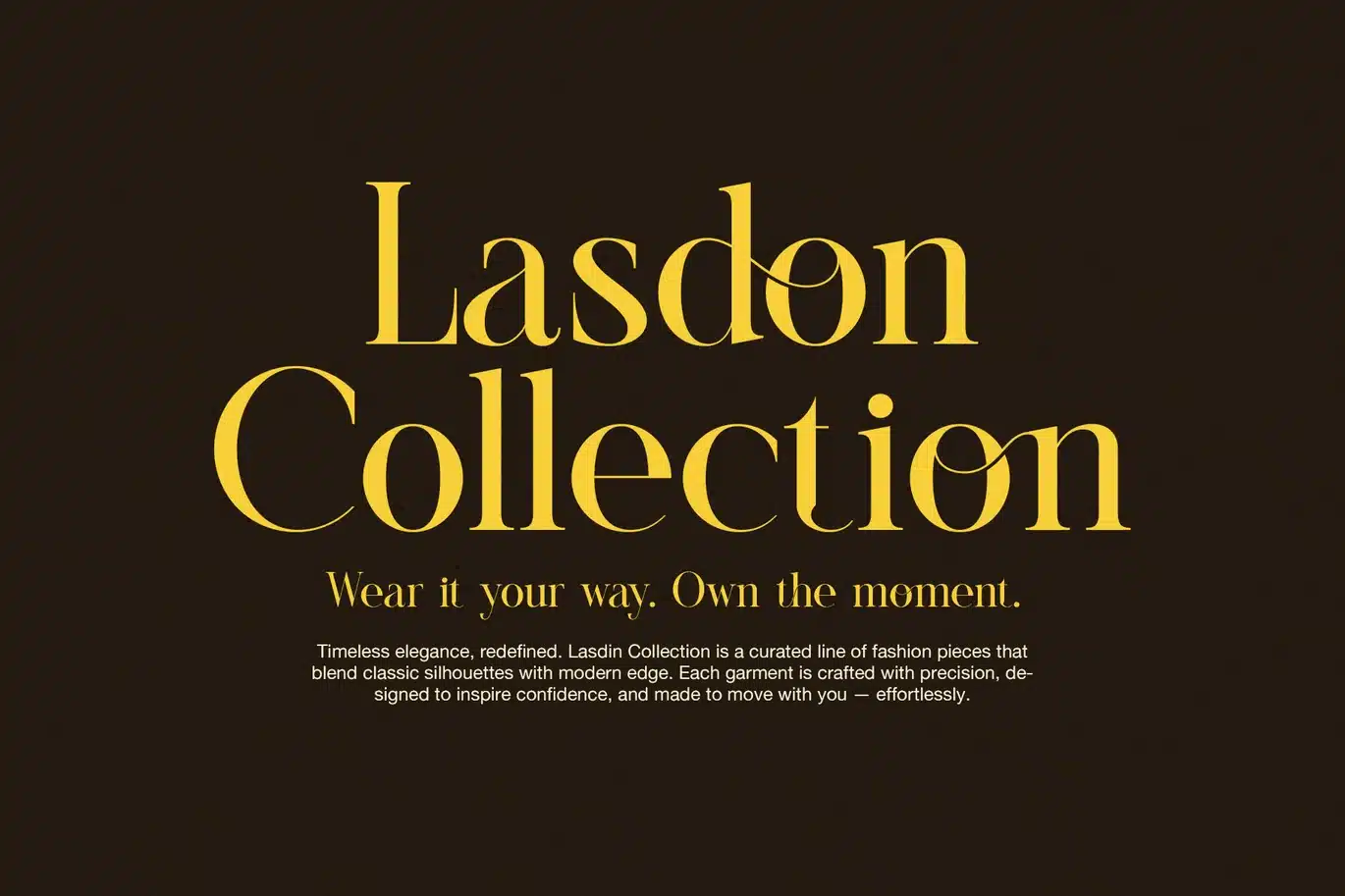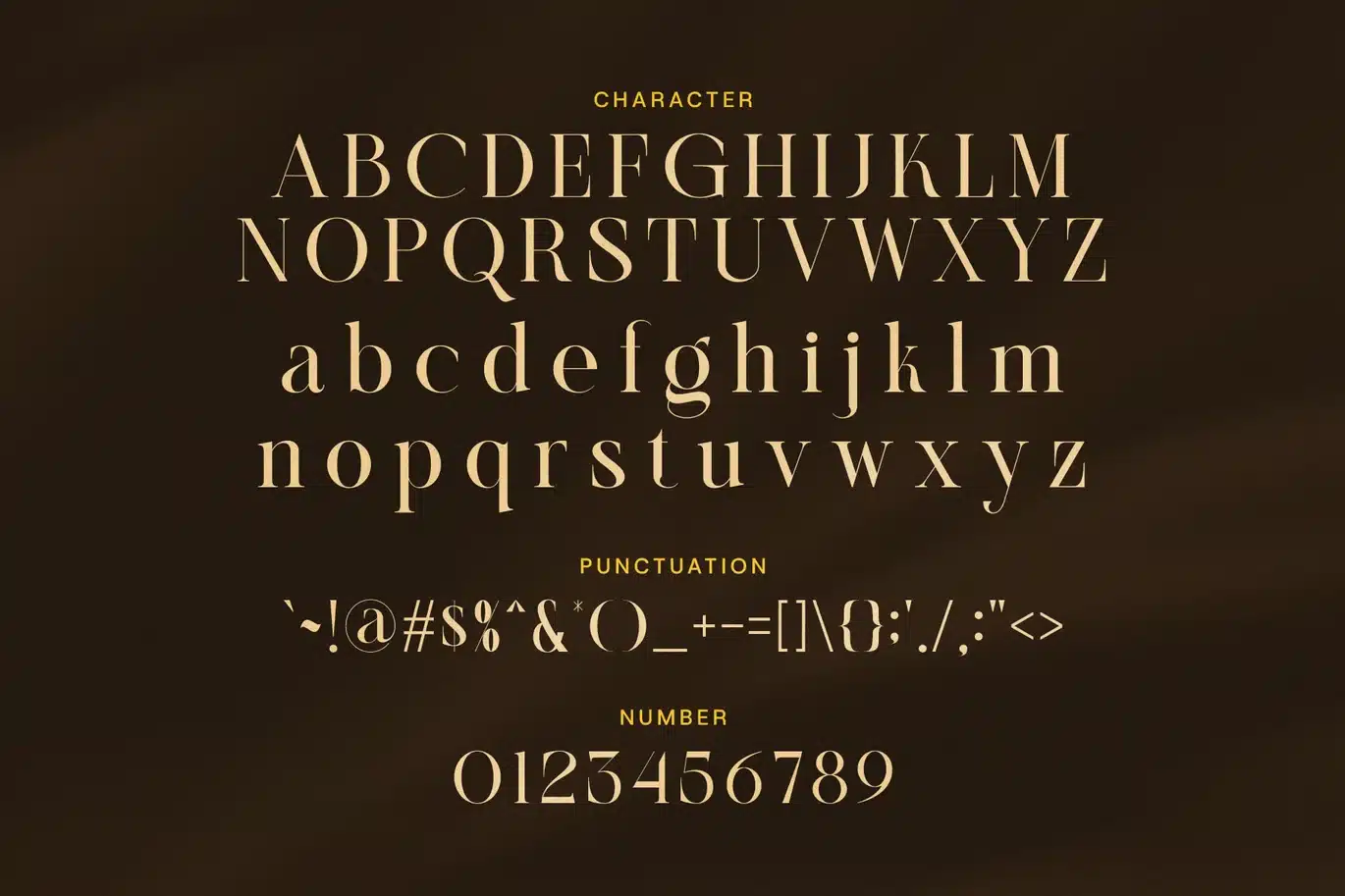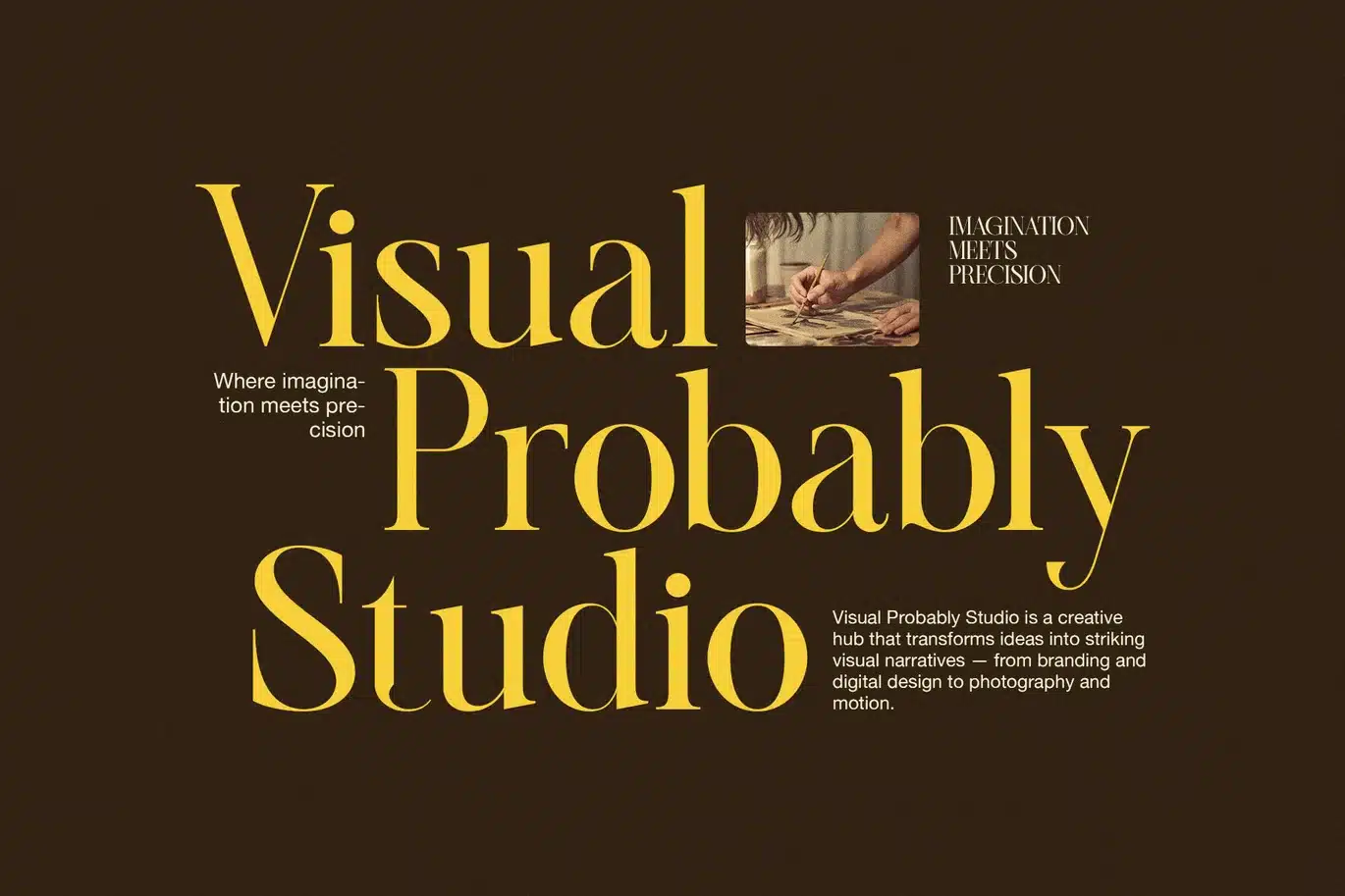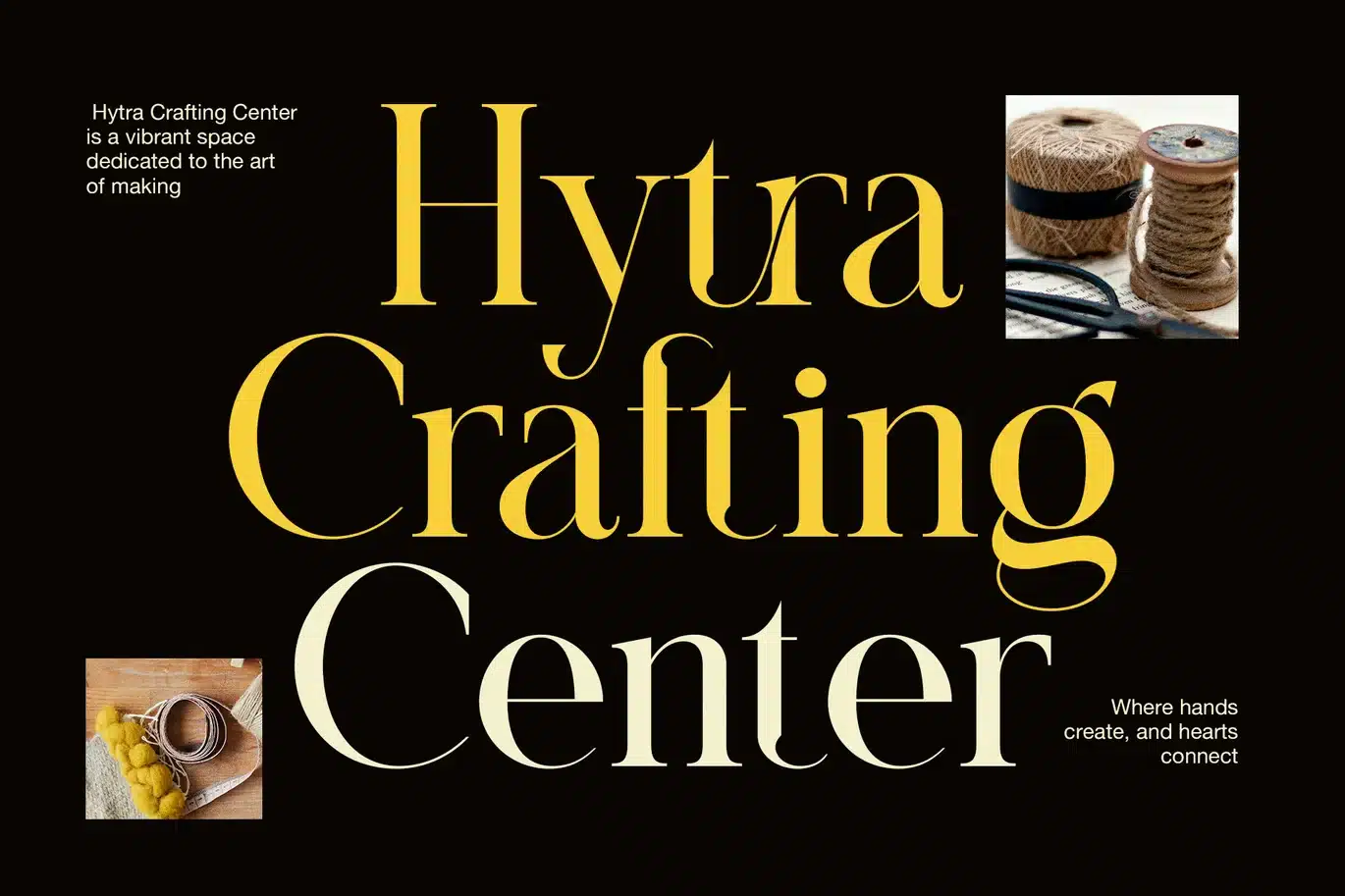
Mosthe Serif Font
Mosthe Serif font is a refined serif display typeface that brings vintage grace into modern designs. It strikes a beautiful balance between classic and fresh, making it ideal for fashion, editorial, logos, and luxury branding. Whether you use it for a boutique name, a magazine title, or packaging, this font gives your work a touch of style and class.
First, observe the contrast: Mosthe Serif features thin and thick strokes that create elegant dynamics. At the same time, its serifs are sharp but not heavy, giving visual interest without distraction. In addition, the shapes remain clean and uncluttered, which helps readability in large display use.
Moreover, it includes a full character set: uppercase, lowercase, numerals, punctuation, and accented glyphs. Thus you can design in multiple languages and varied layouts. You can pair Mosthe Serif with a neutral sans serif to anchor body text and allow the serif to shine in headlines.
Here are its key features and uses:
Clean, readable letterforms in display sizes
Full glyph set: letters, numbers, symbols, accents
Great for logos, branding, editorial, fashion
Works in print and digital formats
Pairs well with simple sans serif fonts
With Mosthe Serif font, your layouts gain a sense of elegance and consistency. For example, you might use it in book covers, fashion lookbooks, boutique branding, invitations, or web headers. Because of its balanced style, it adapts well to both high-end and artistic projects.
Furthermore, the design tones well with minimal layouts. As a result, text set in Mosthe Serif feels polished yet bold. Also, transitions between elements feel natural when you layer it with a subtle sans serif companion.
In short, Mosthe Serif font offers classic elegance with modern usability. It’s versatile enough to elevate your brand or editorial work while preserving clarity. If you seek a serif that reads well in large formats and expresses style, this is a strong choice.